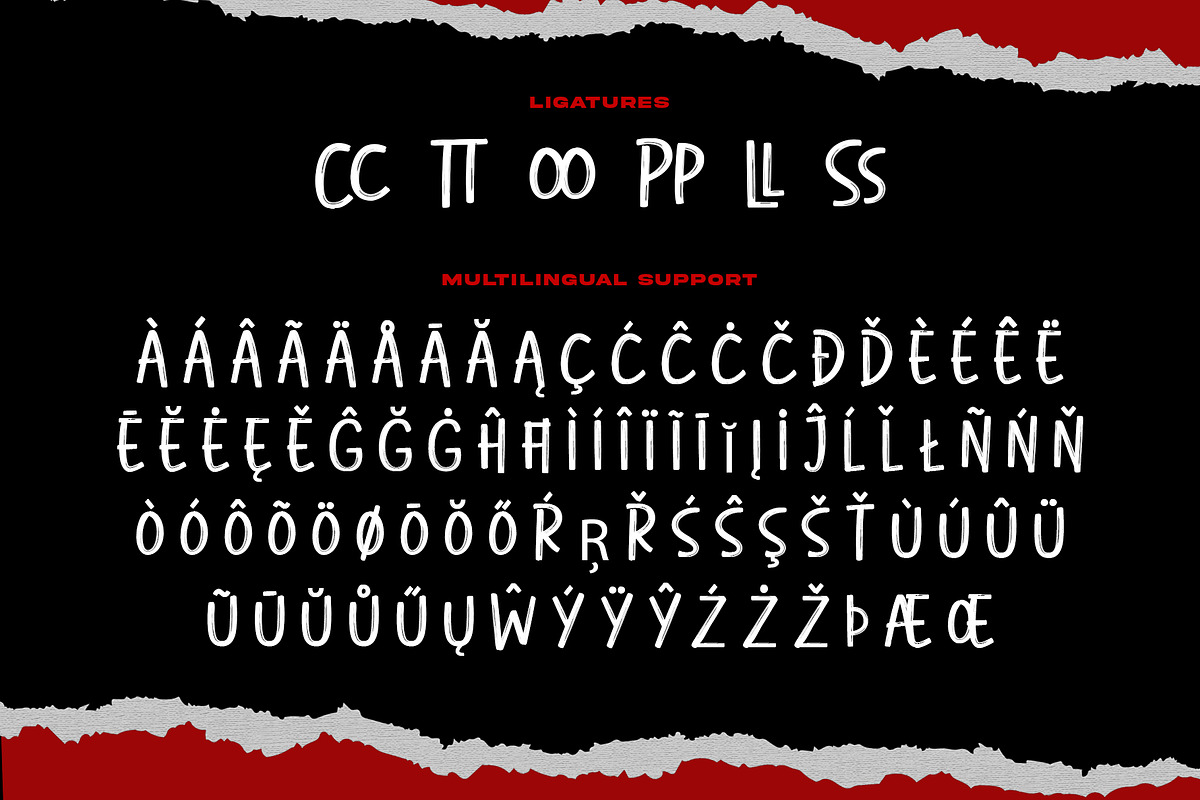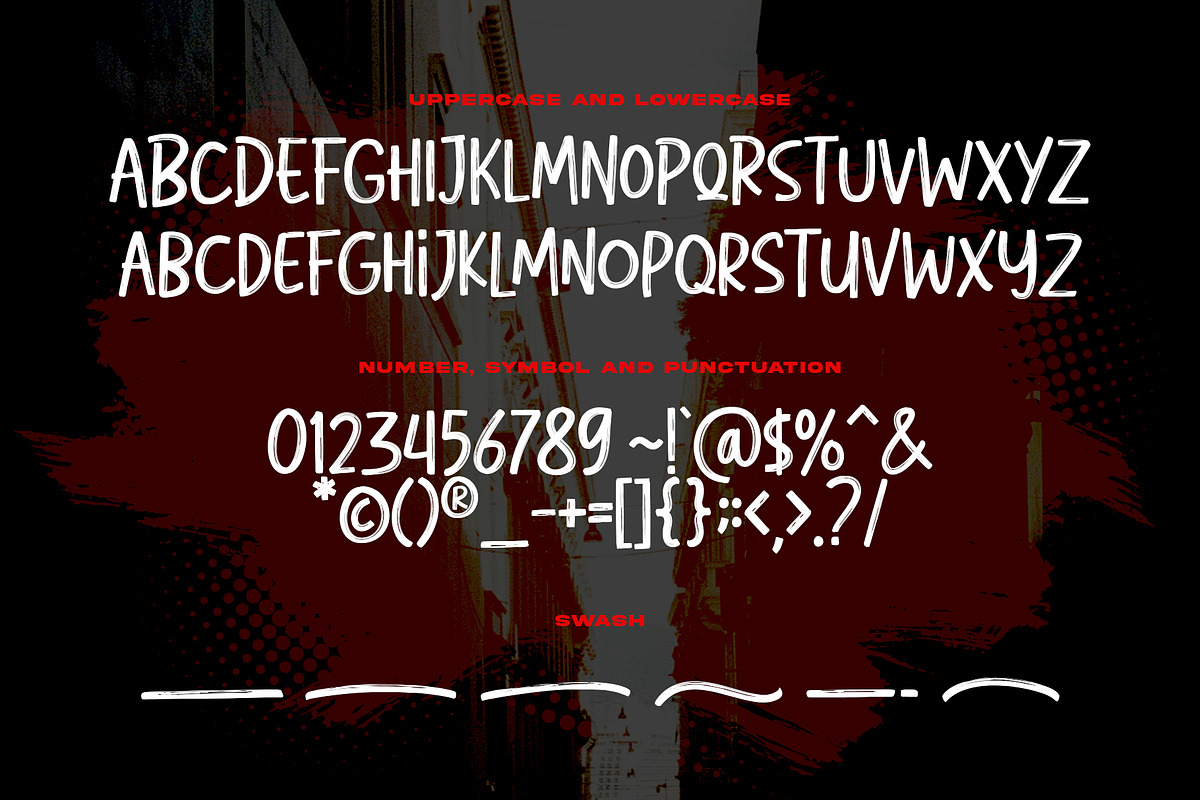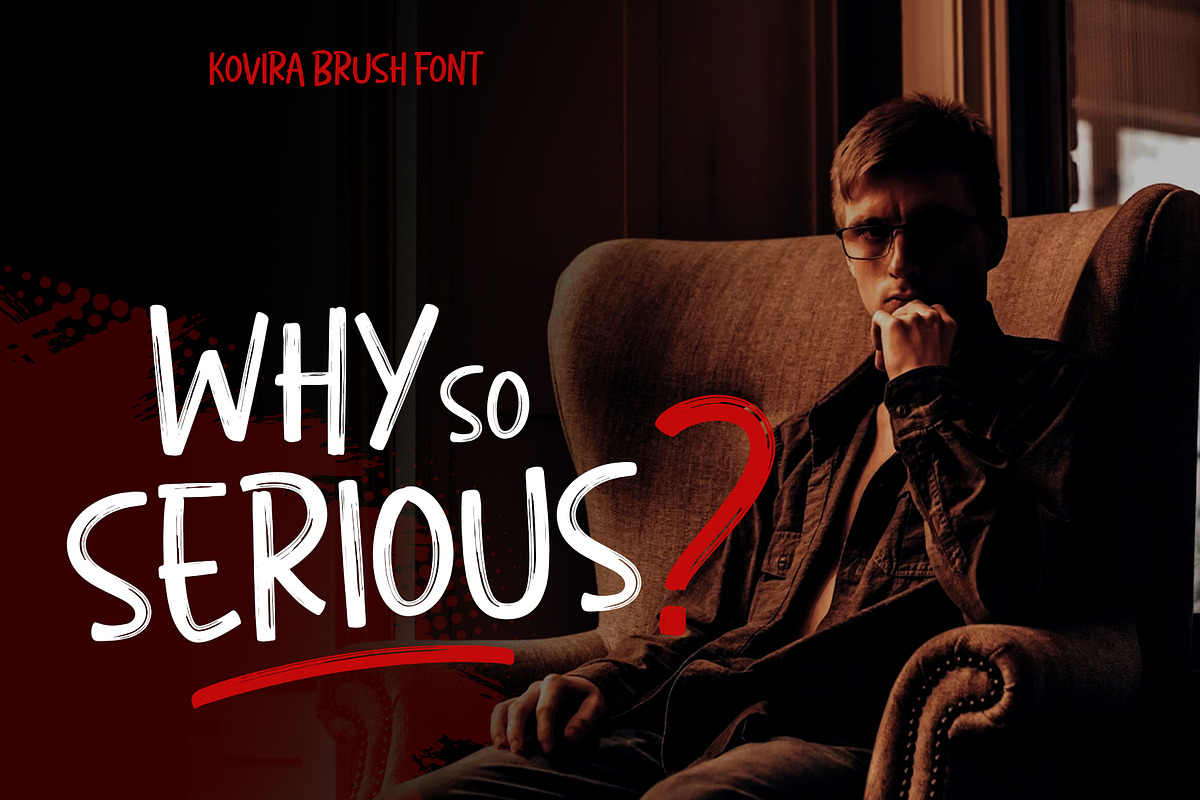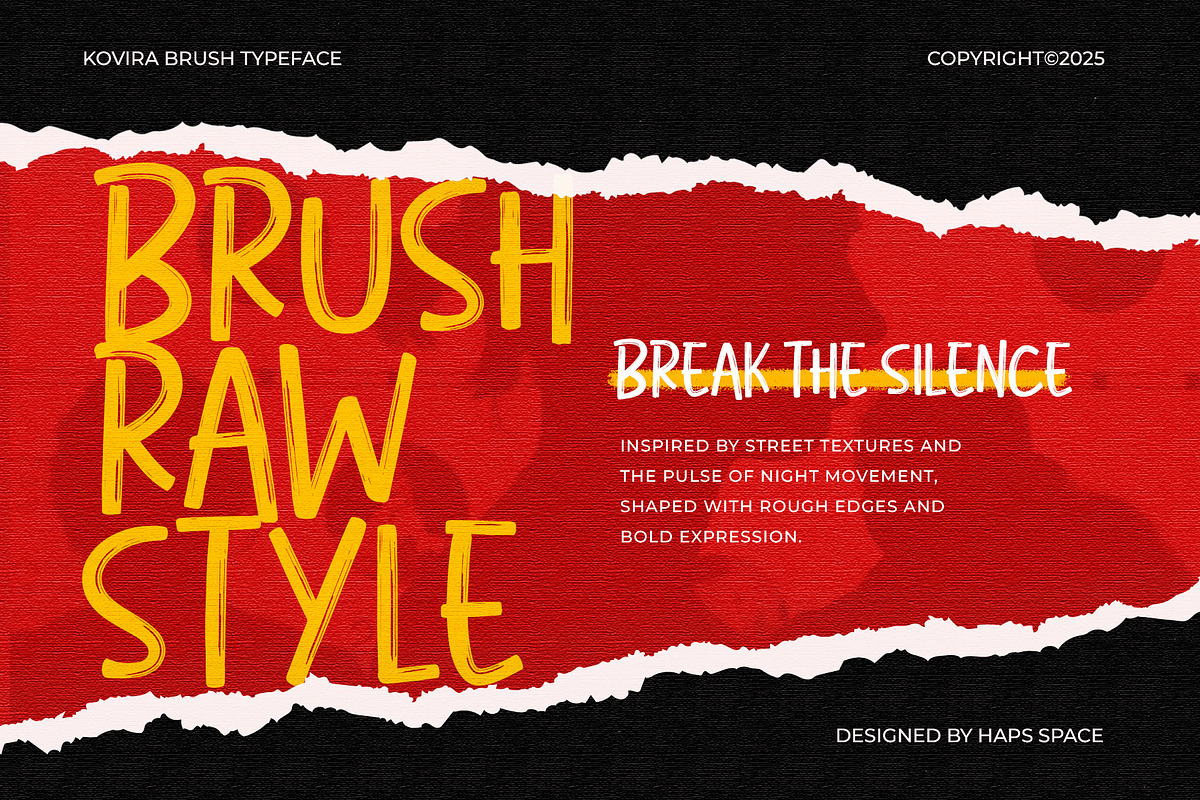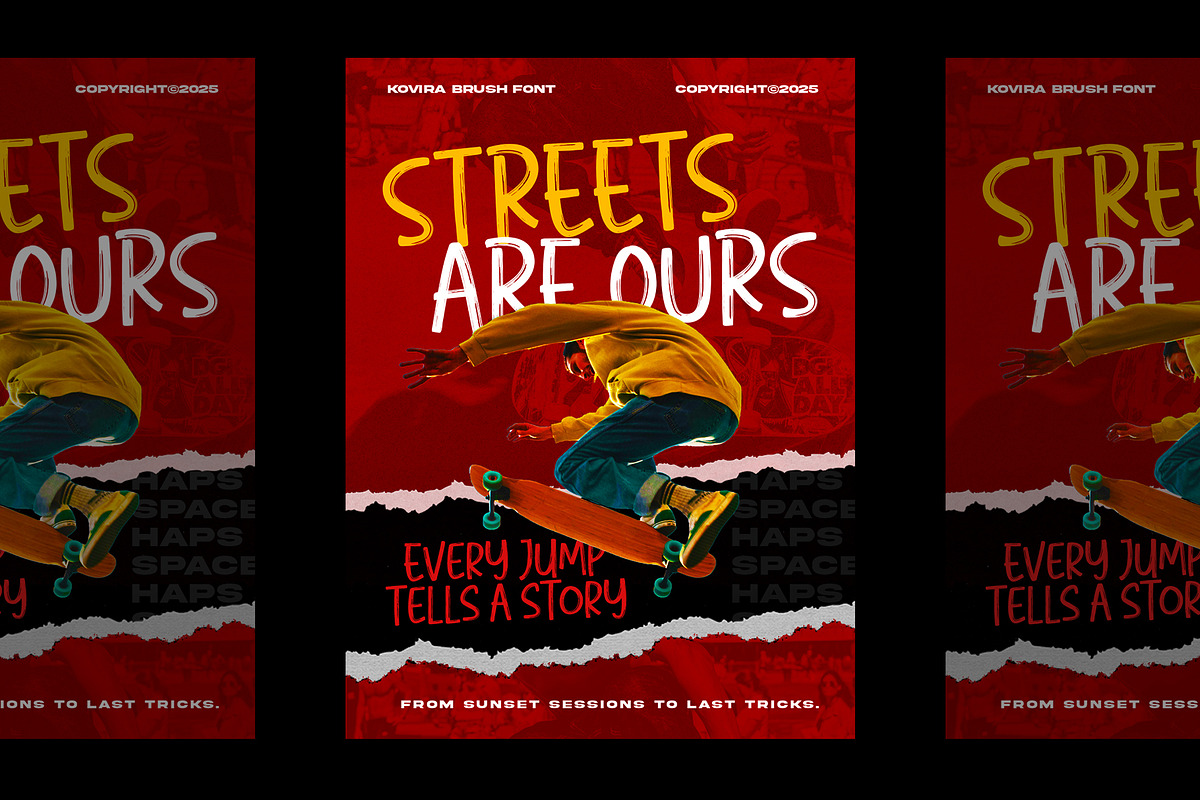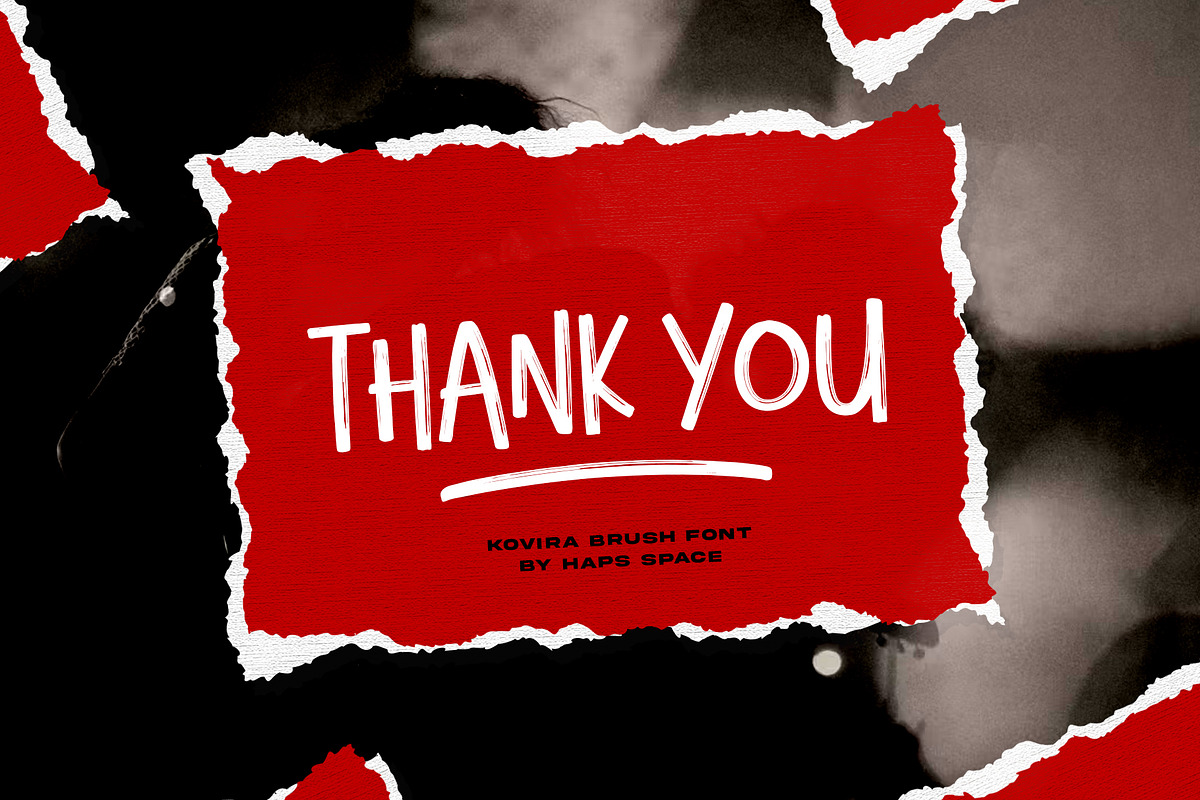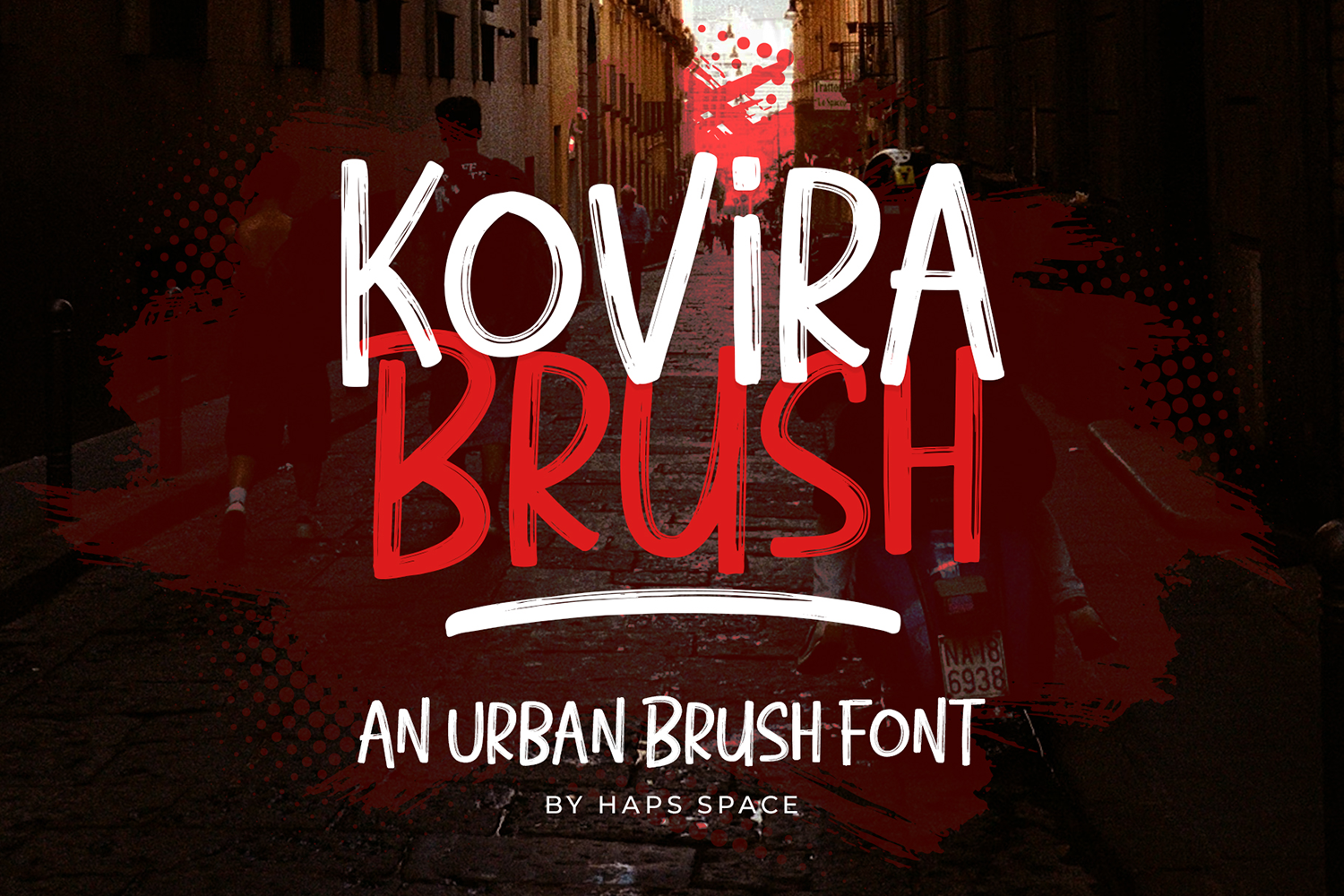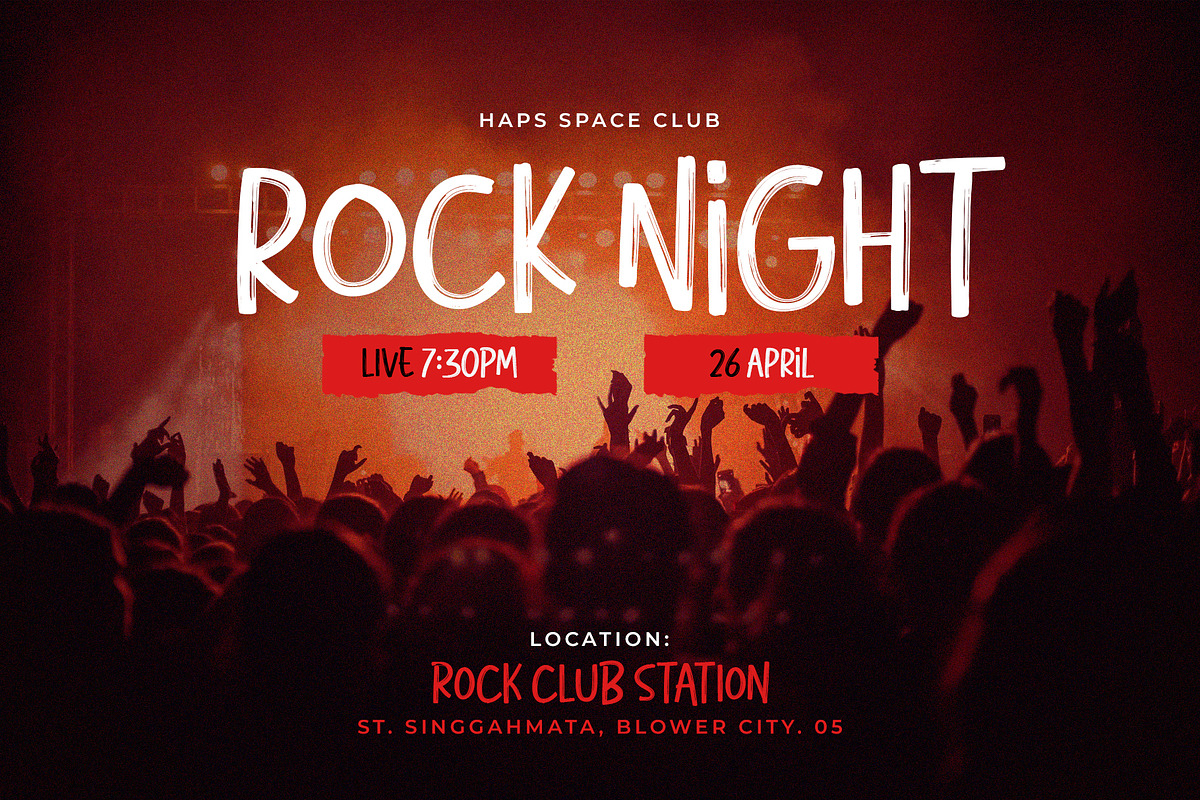
Kovira Urban Brush Font
Kovira Brush is a bold and expressive urban brush font designed to bring raw energy and street-style attitude to your designs. Featuring rough strokes and handcrafted textures, this font delivers a powerful visual impact that feels modern, rebellious, and authentic.
Perfect for posters, music covers, branding, streetwear designs, social media graphics, logos, headlines, and edgy typography projects. Kovira Brush works great for projects that need a strong personality and urban vibe.
Whether you’re creating designs for youth culture, urban fashion, or bold visual campaigns, Kovira Brush will help your work stand out with confidence and style.
- Full multilingual character set
- OpenType features such as ligatures and alternates